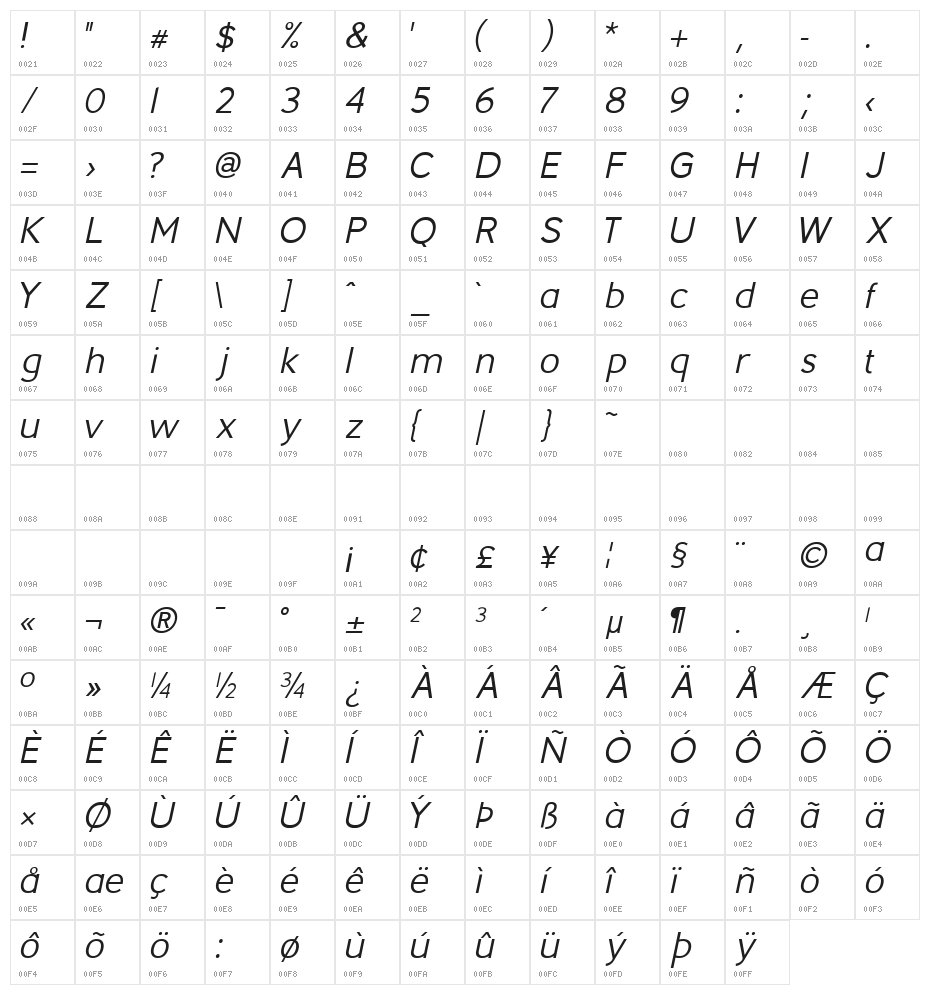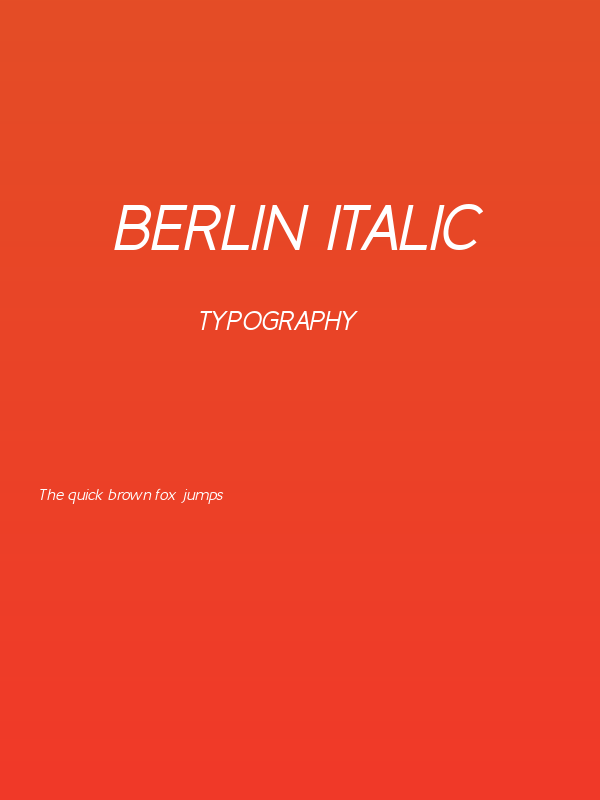
Berlin Italic Font
Berlin Italic Description
This font features a sleek and modern italic style with smooth curves and a clean, streamlined appearance. The characters are slightly slanted, giving a sense of motion and elegance. The uppercase letters are bold and assertive, while the lowercase letters maintain a consistent flow with rounded edges. The numerals are clear and easy to read, complementing the overall design. Special characters are well-integrated, maintaining the font's cohesive look. This typeface is versatile, suitable for both digital and print media, offering a professional yet approachable aesthetic.
| Proposed Projects | Ideal for branding, advertising, editorial design, and digital interfaces. |